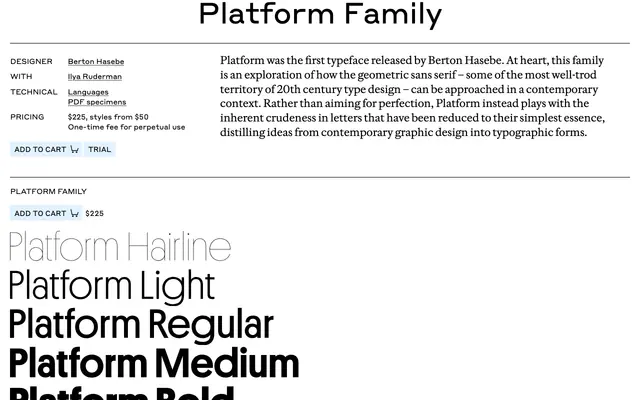
Platform
Commercial Type · Berton Hasebe with Ilya Ruderman
Berton Hasebe's first Commercial Type release, a geometric sans that plays with the crudeness of simplified letterforms rather than chasing perfection.
A geometric sans by Berton Hasebe, drawn with Ilya Ruderman for Cyrillic support, and Hasebe's first release for Commercial Type. Ten styles run from Hairline through Bold with matching italics. Where most geometric sans pursue perfection, Platform leans into the inherent crudeness of letters reduced to their simplest essence, distilling ideas from contemporary graphic design into typographic forms. Suits identity, editorial and packaging work that wants a clean, contemporary geometric voice.
Commercial Type describe Platform as an exploration of how the twentieth-century geometric sans can be approached contemporarily, leaning into the inherent crudeness of letters reduced to their simplest essence rather than chasing geometric perfection.